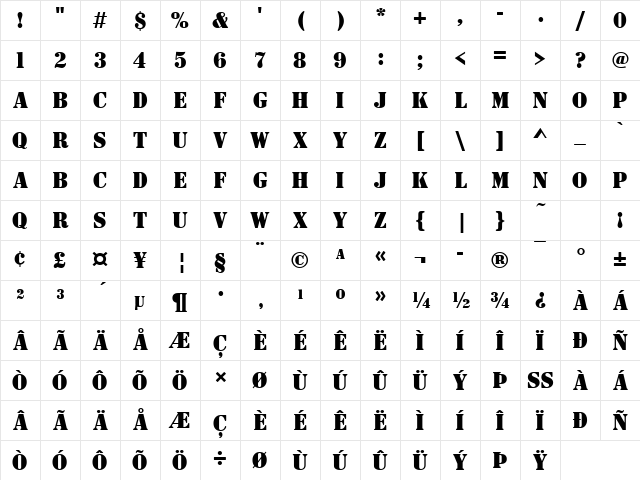
Stencil Becker Solid Regular
Design Context for Stencil Becker Solid
Stencil Becker Solid borrows the utilitarian aesthetic of stencil lettering, with its characteristic cutaways and no-frills construction lending an industrial edge.
Pro Tip: Use Stencil Becker Solid at large sizes on packaging, posters, or apparel where the stencil cutaways read clearly. Avoid small sizes where those gaps become visual noise.